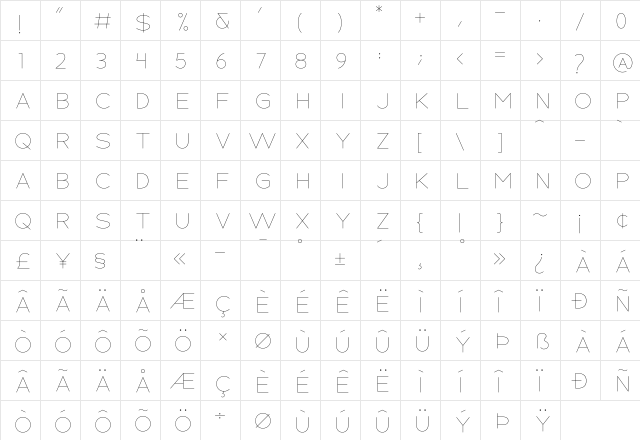
MODERNSPACE Regular
Design Context for MODERNSPACE Typeface
MODERNSPACE is a composed and adaptable typeface that performs quietly and consistently across a wide range of design contexts.